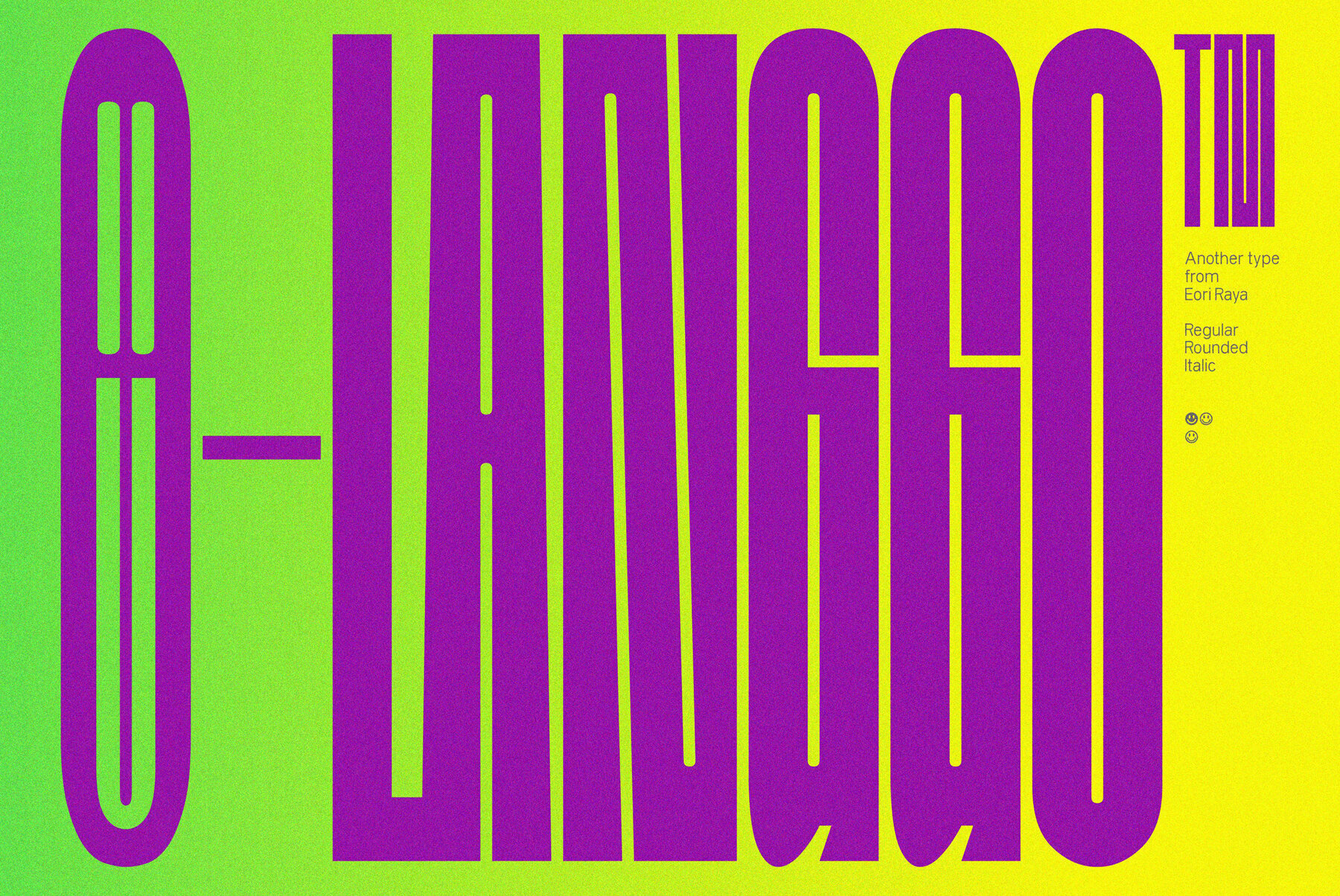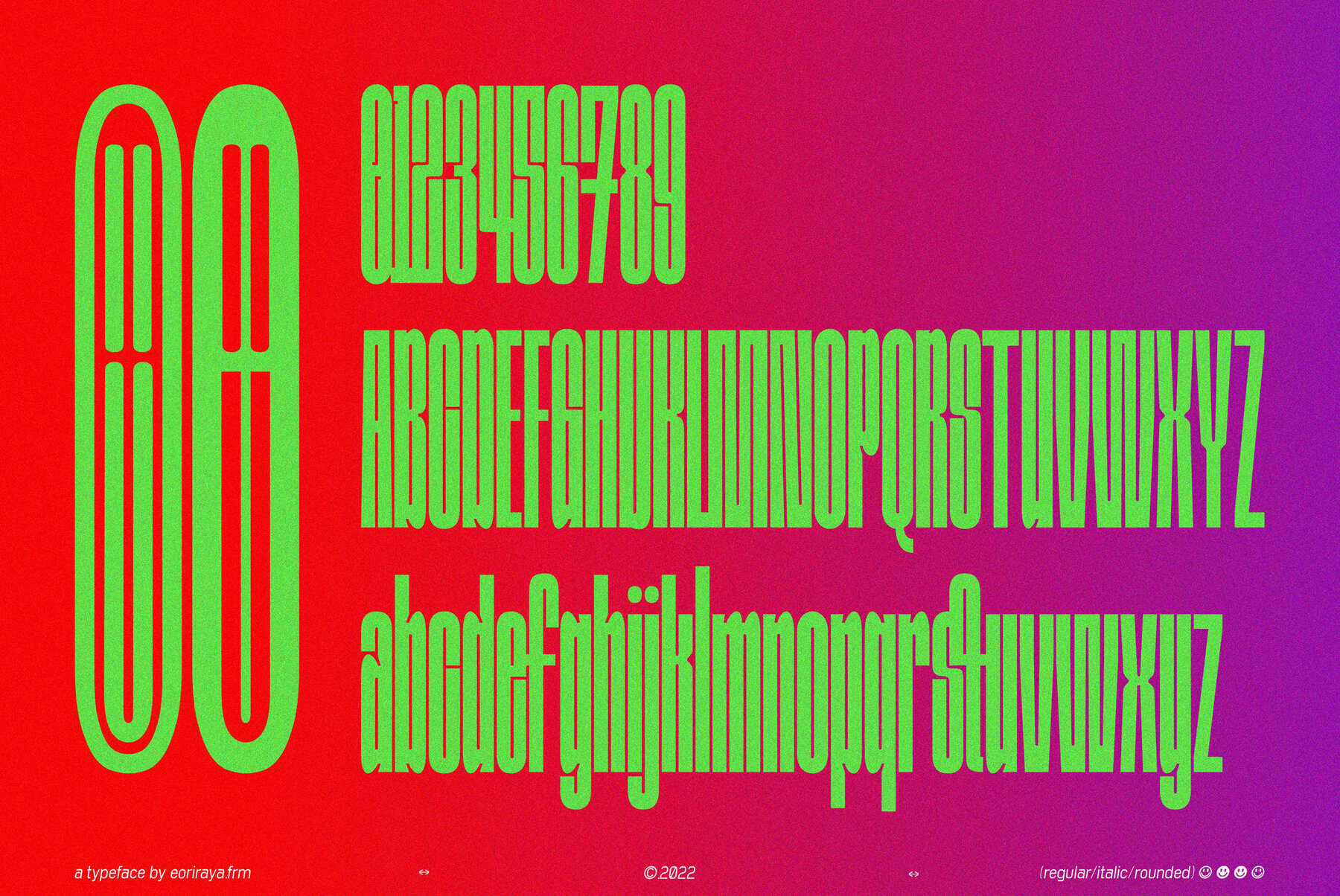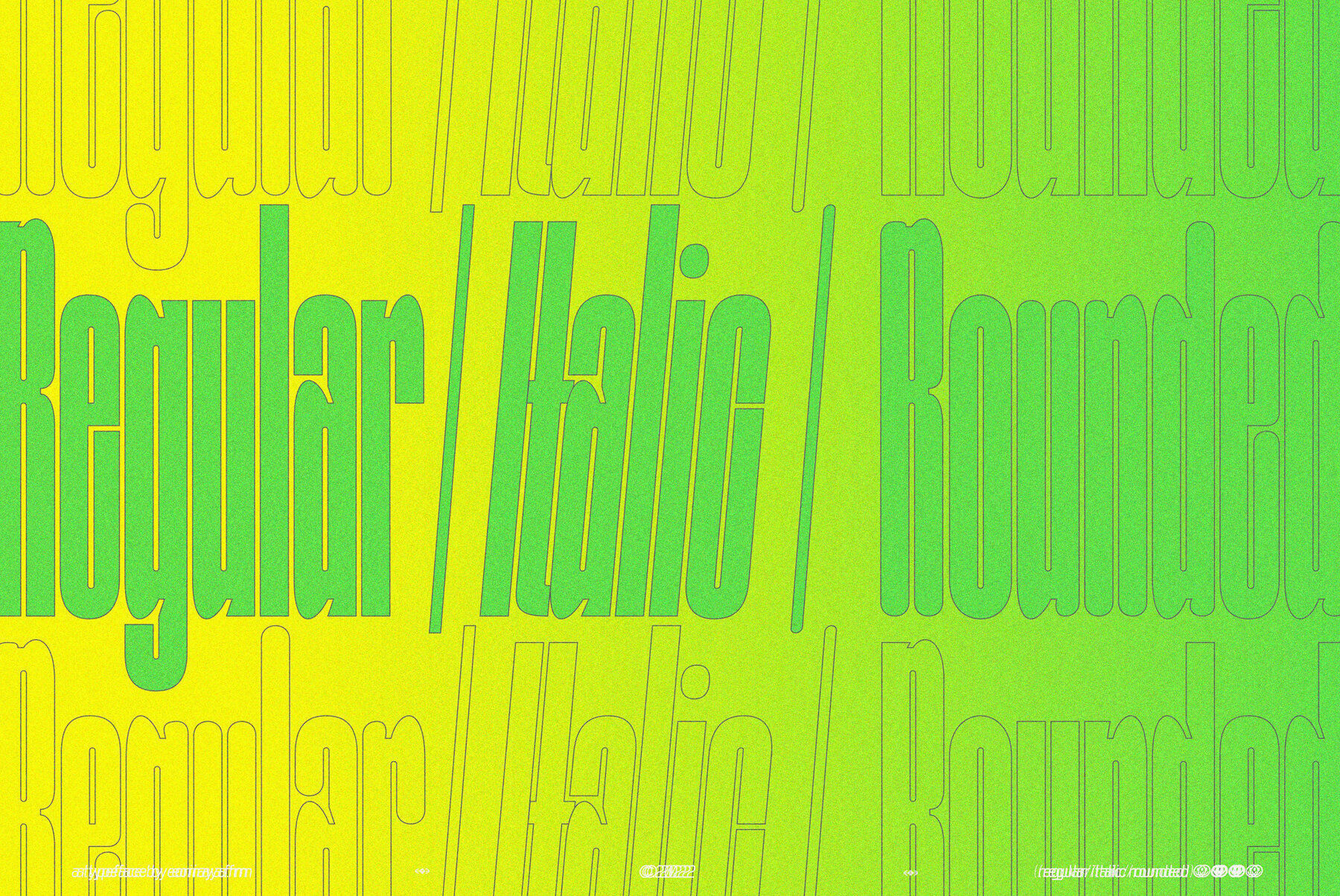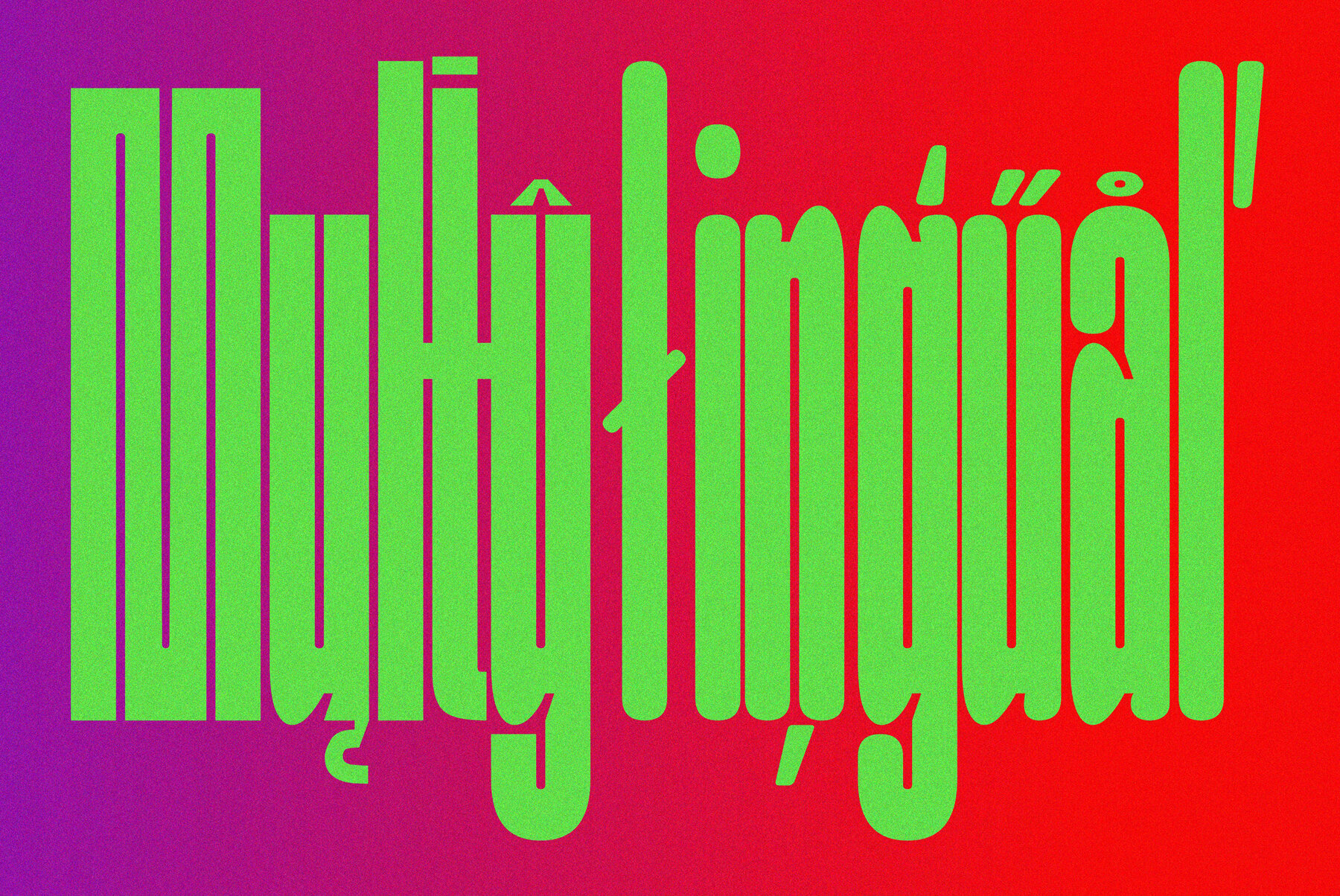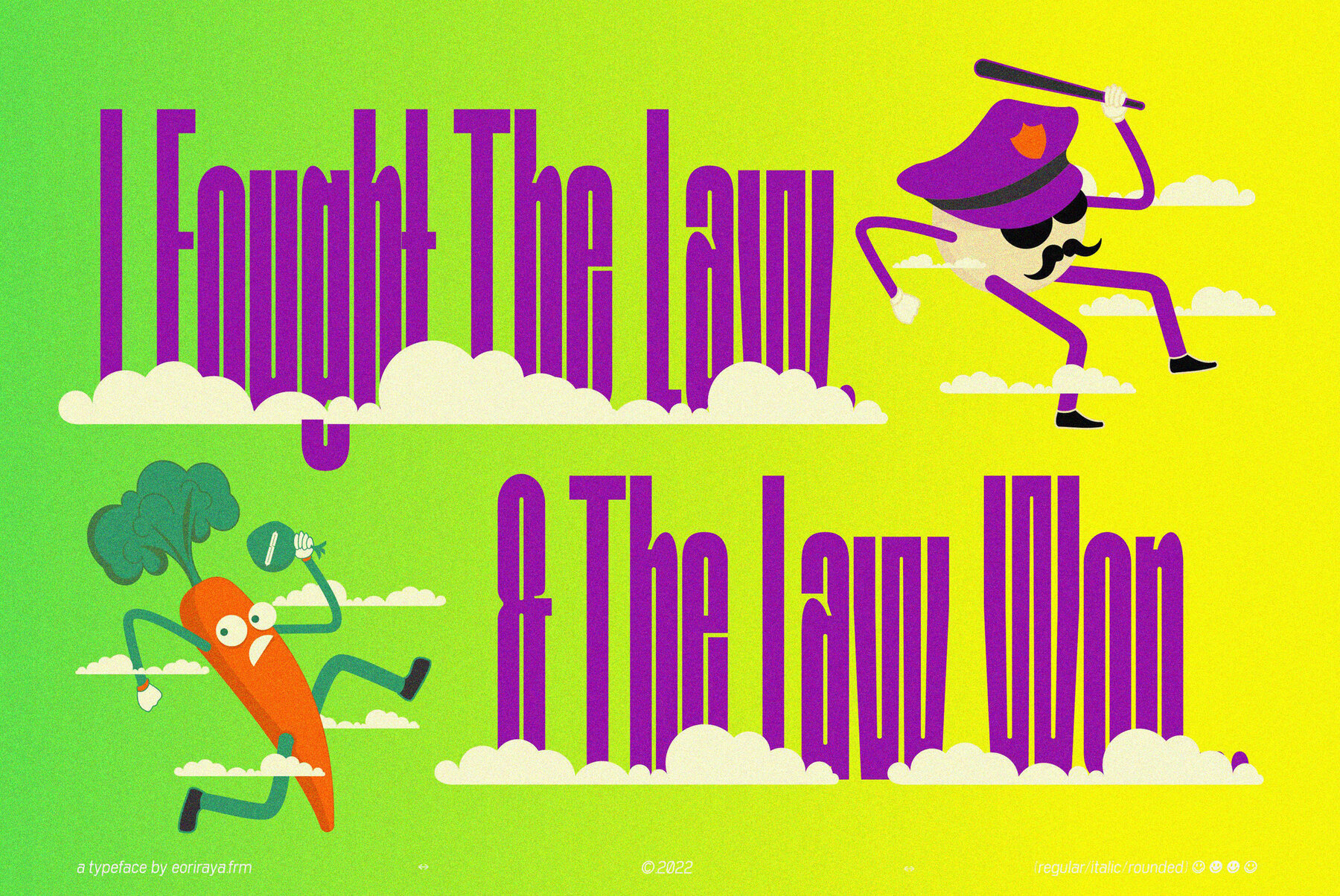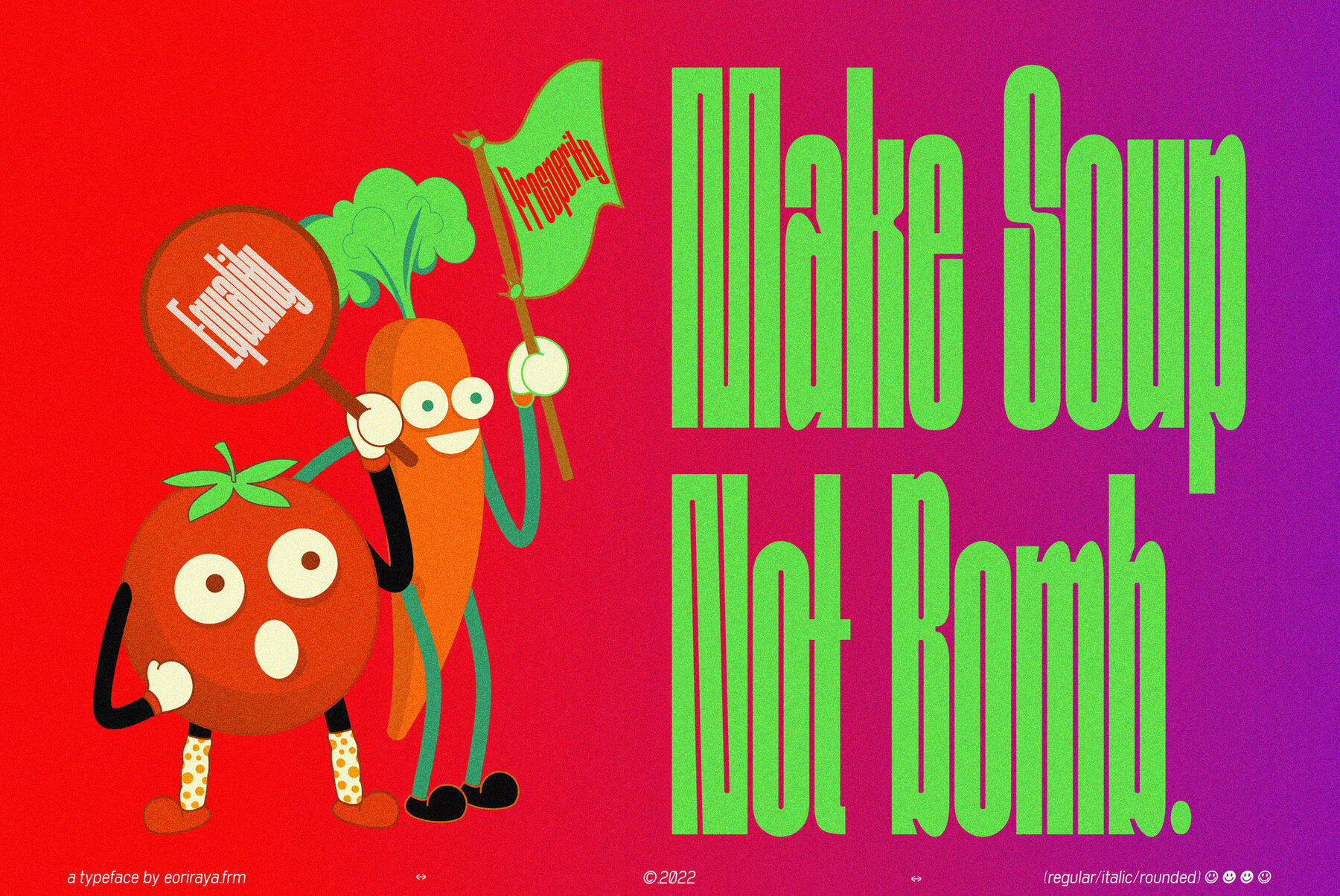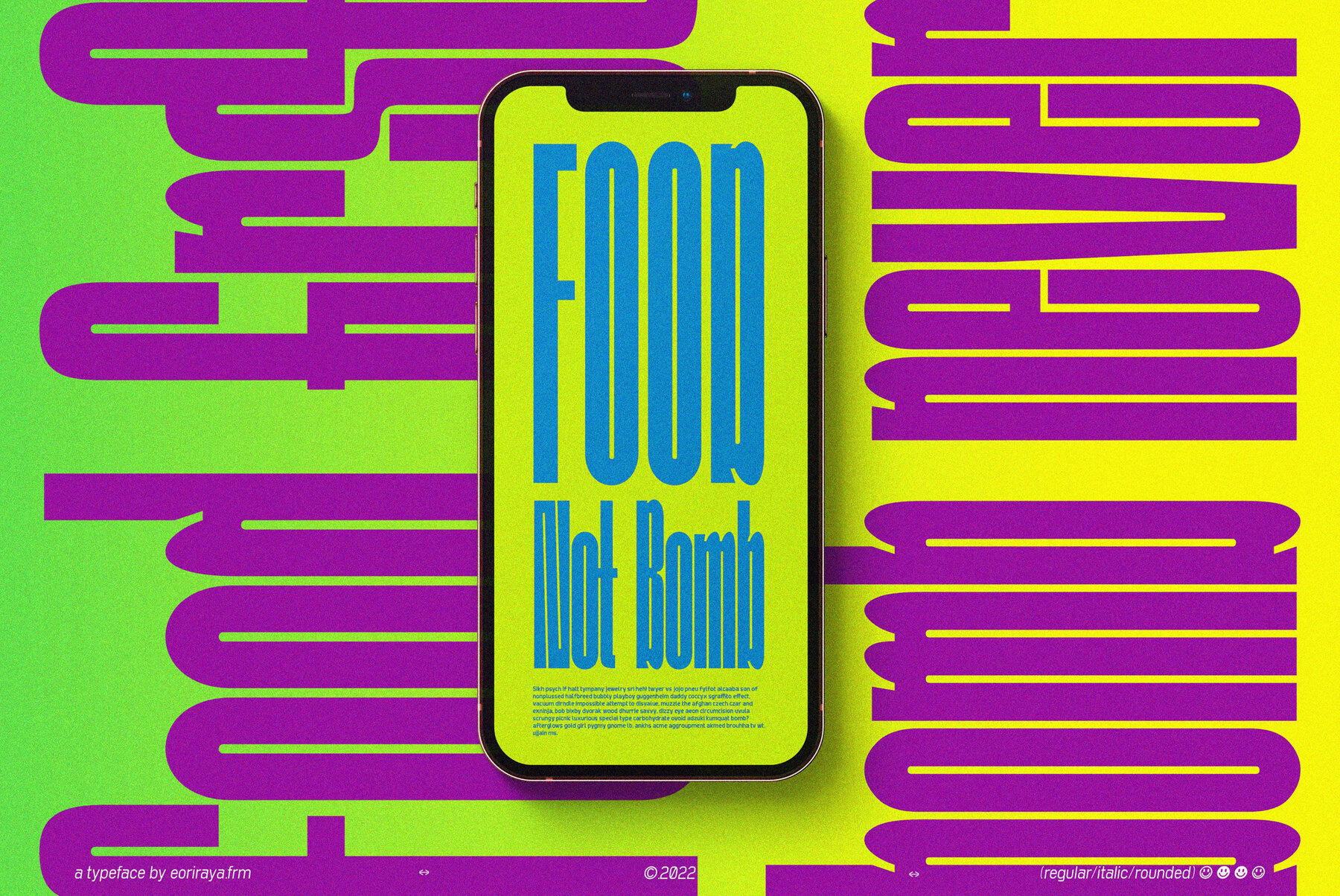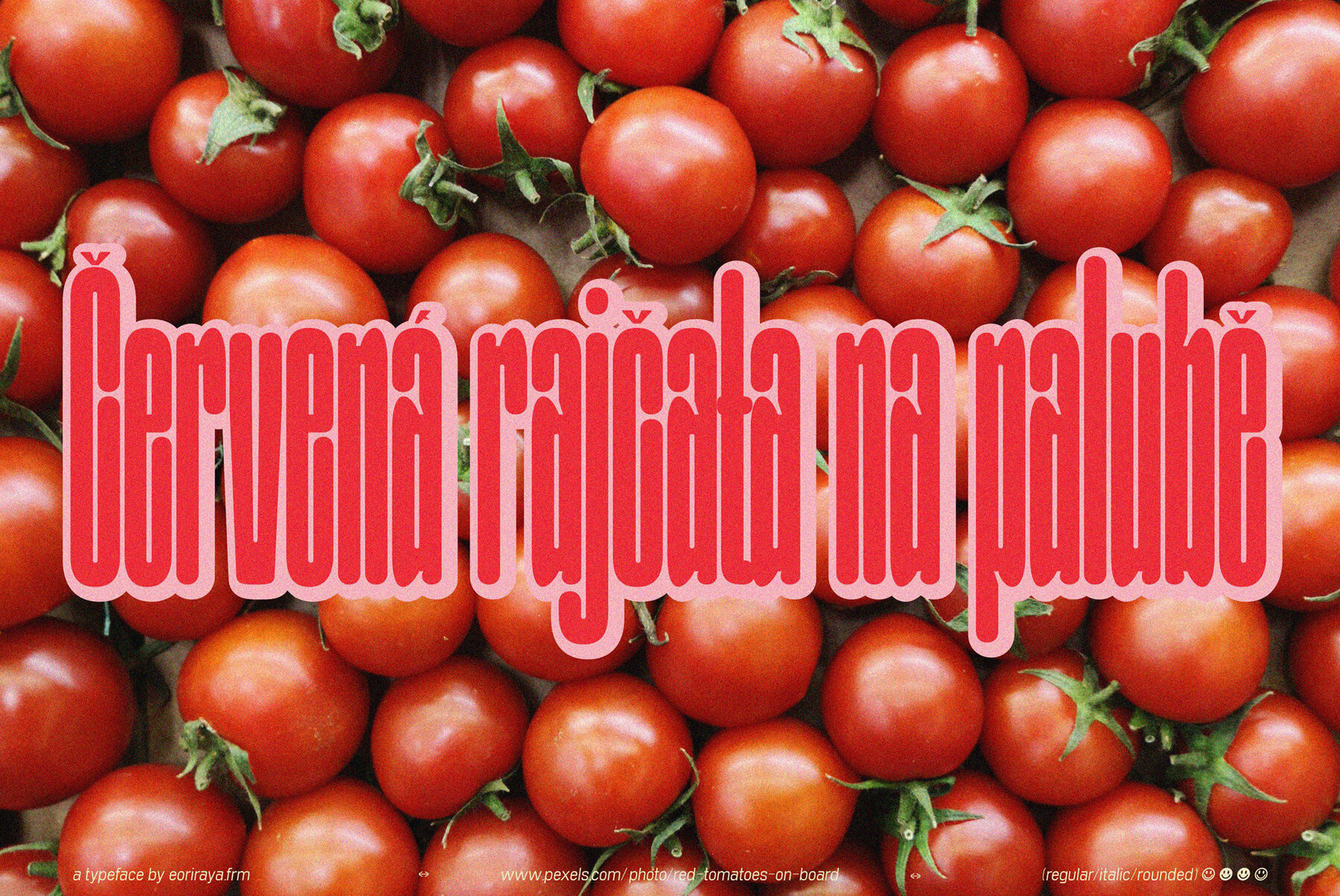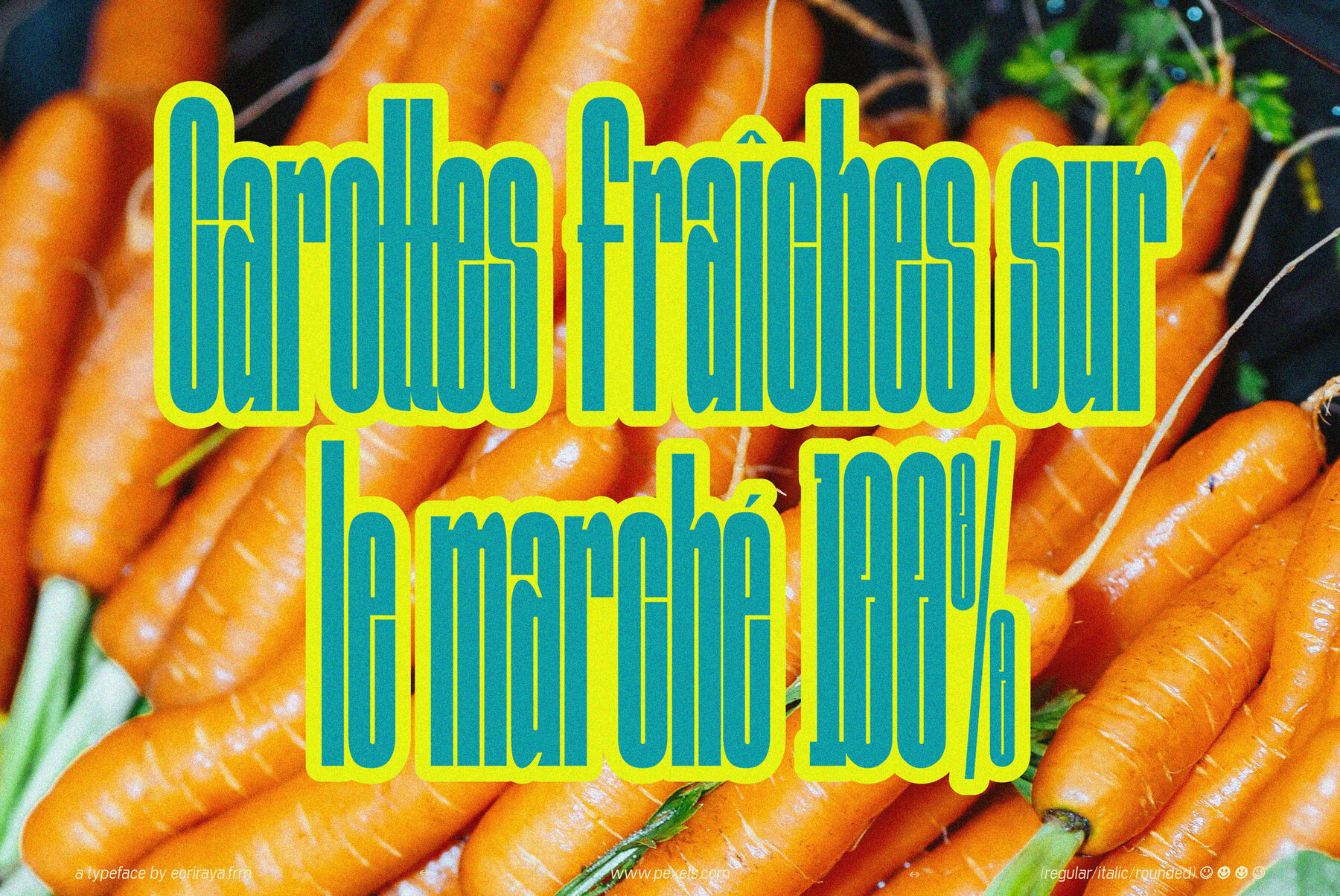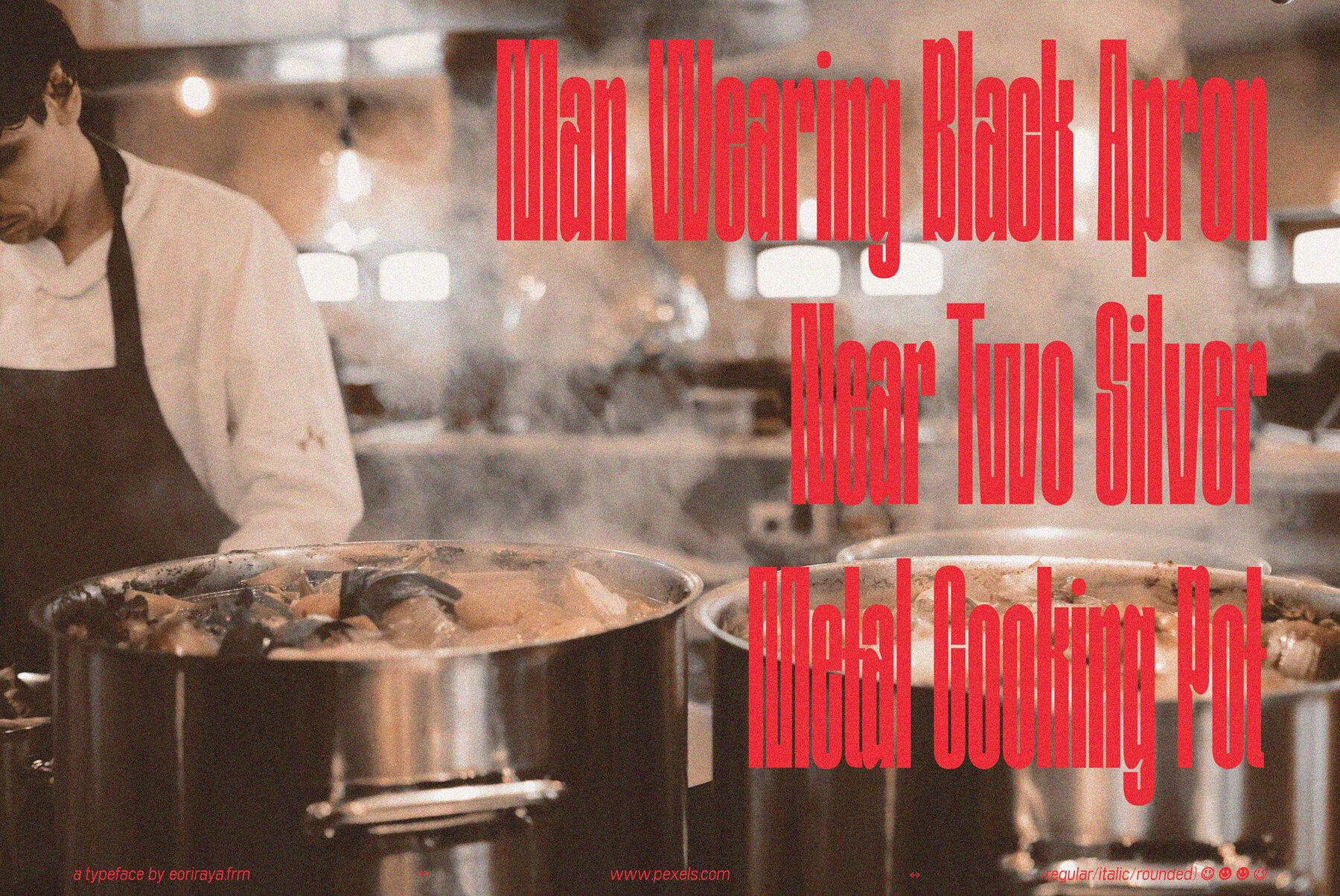
Langgo Font
Langgo Regular
Langgo Italic
Langgo Rounded
Langgo Rounded Italic
Langgo font is a condensed typeface that was created for the use of a narrow spaces. Langgo can help for the use of letters as a display with a few words, Langgo will be suitable to be applied to the film, sports and fashion industries.